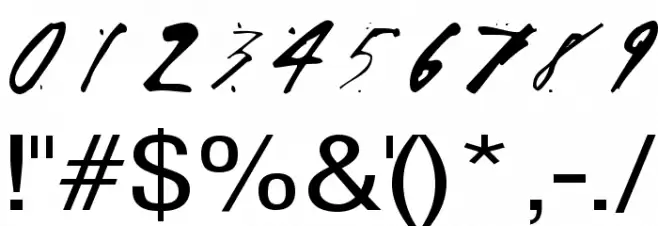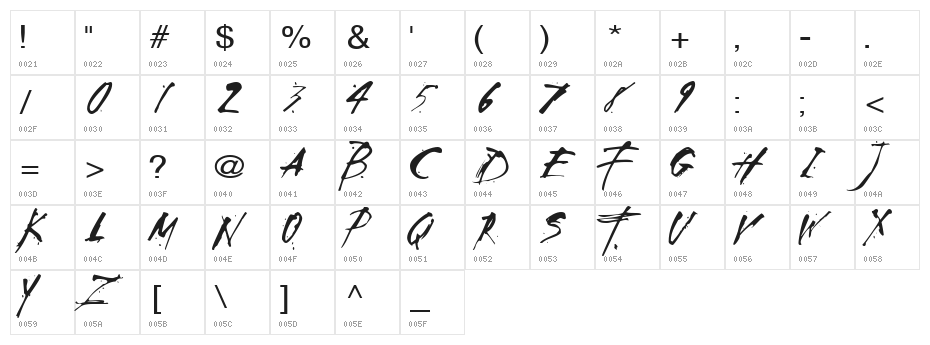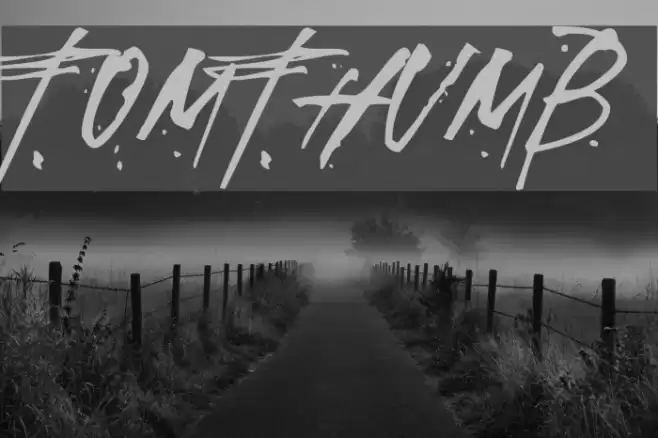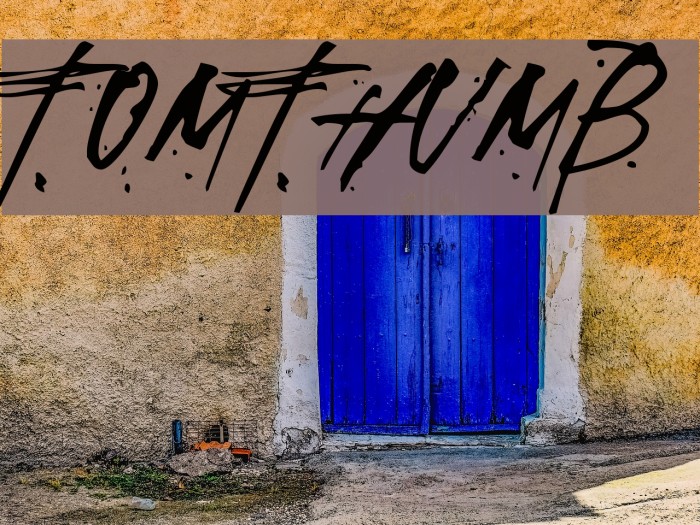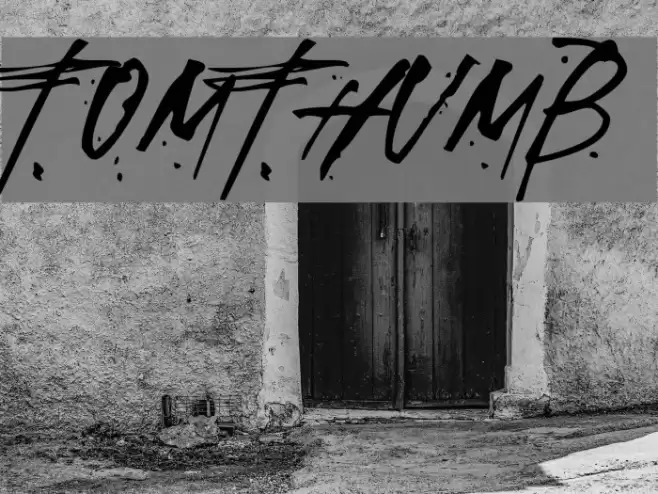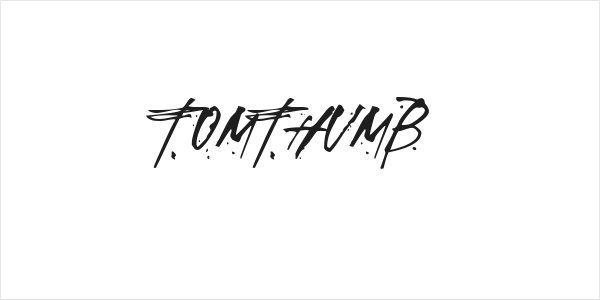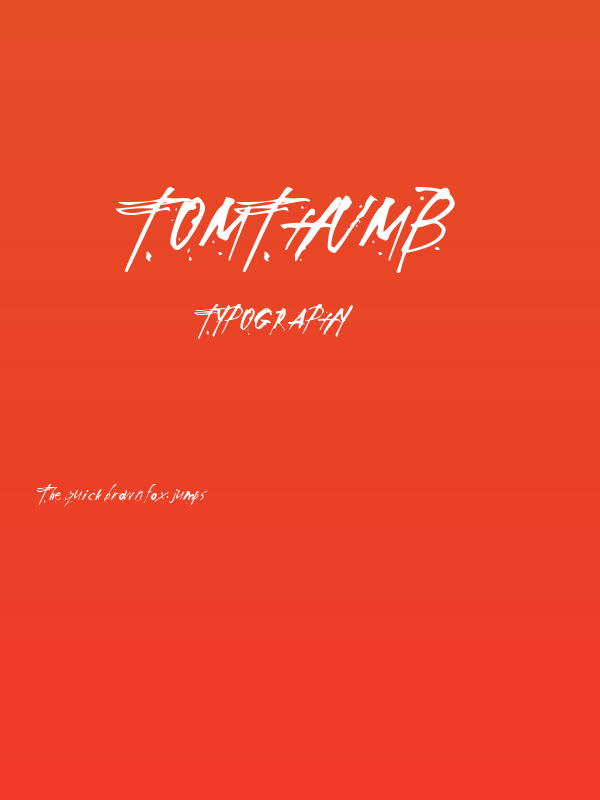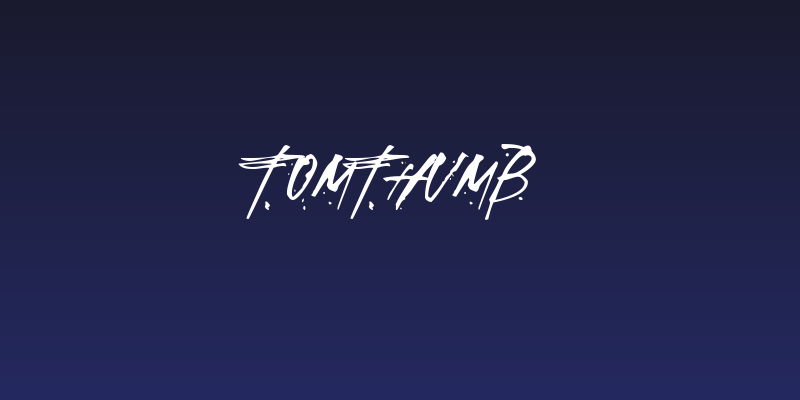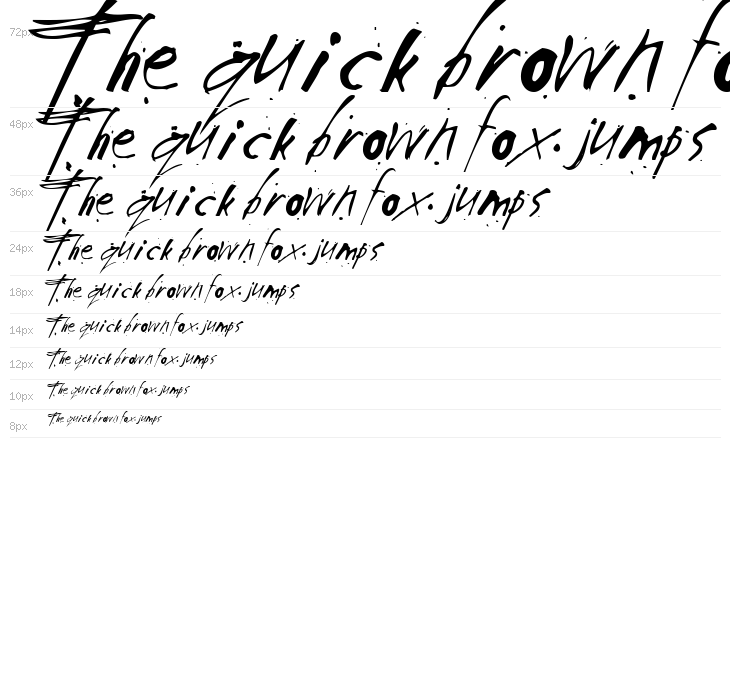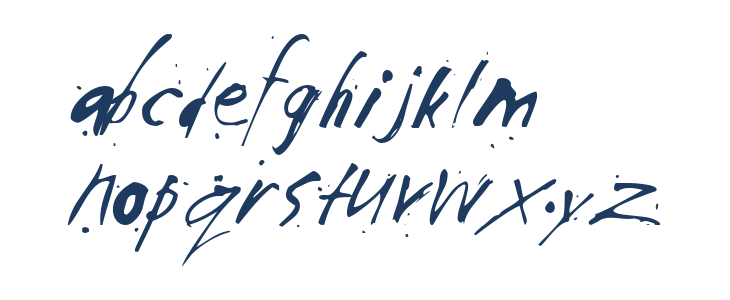
TOMTHUMB Font
TOMTHUMB Description
This font exudes a raw, energetic style reminiscent of expressive brush strokes. Each character is crafted with a dynamic, hand-drawn appearance, featuring irregular edges and splatters that add to its artistic flair. The uppercase and lowercase letters maintain a consistent flow, while numbers and special characters complement the overall aesthetic. The font's unique style makes it stand out, offering a sense of movement and creativity. Its design is perfect for projects that require a bold, artistic touch, capturing attention with its unconventional and striking appearance.